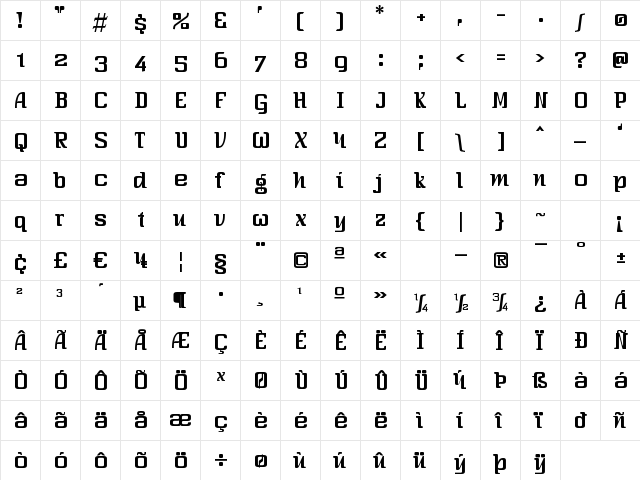
Three-Sixty Condensed Regular
| Foundry | Starving-4 Entertainment |
| Designer | Darren Rigby |
Design Context for Three-Sixty Condensed Typeface
Three-Sixty Condensed takes a measured approach to typography — its balanced proportions and neutral character make it a reliable workhorse for both digital and print work. The condensed width makes it efficient for tight spaces without sacrificing legibility.